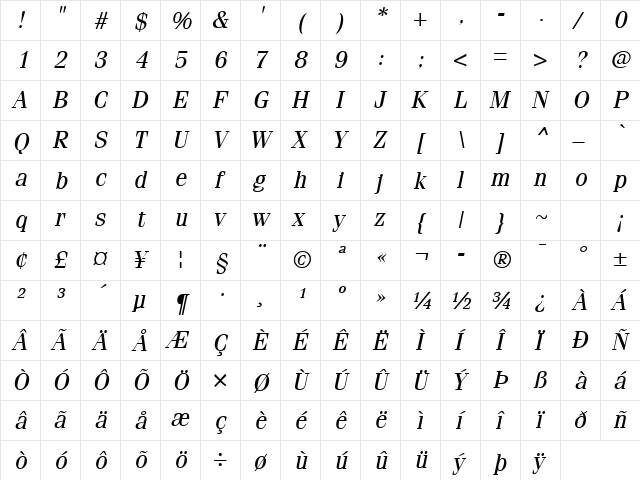
Felicia Italic
Design Context for Felicia Typeface
Felicia offers clean, dependable letterforms without strong stylistic allegiance, making it a practical choice for designers who need flexibility. Its italic angle brings a sense of urgency and motion to the letterforms.
Pro Tip: Try Felicia for annotation and caption copy alongside an upright companion — the contrast in angle creates a dynamic but ordered typographic system.